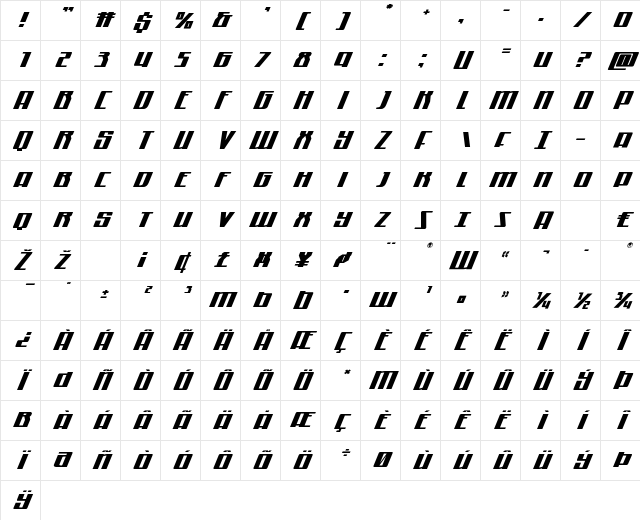
Quantum of Malice Expanded Italic Free Font
Quantum of Malice Expanded Italic Expanded Italic
Style: Expanded Italic
Complete Quantum of Malice Expanded Italic glyph index. Displaying only characters natively supported by Quantum of Malice Expanded Italic font.
Design Context for Quantum of Malice Expanded Italic
Quantum of Malice Expanded Italic is a composed and adaptable typeface that performs quietly and consistently across a wide range of design contexts. The slanted form adds forward momentum and visual energy.
Pro Tip: Use Quantum of Malice Expanded Italic for emphasis, pull quotes, and subheadings where its slanted energy can add rhythm to the layout.